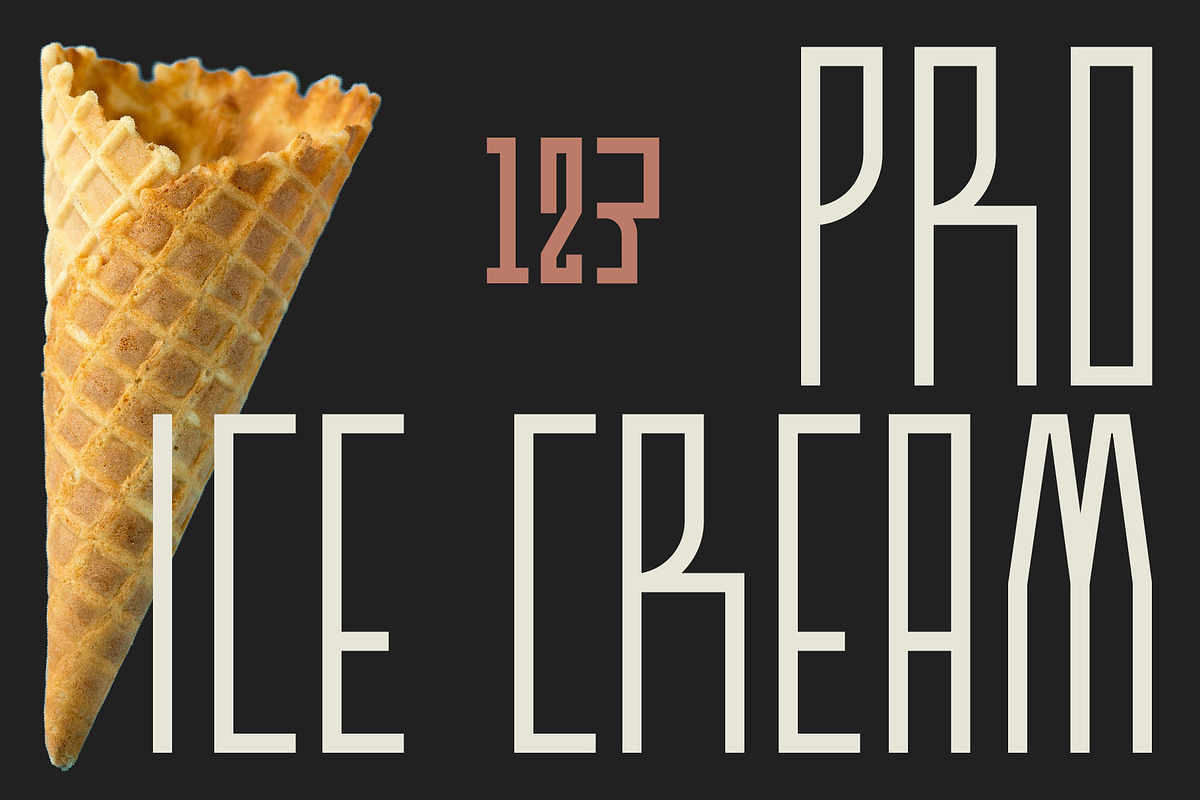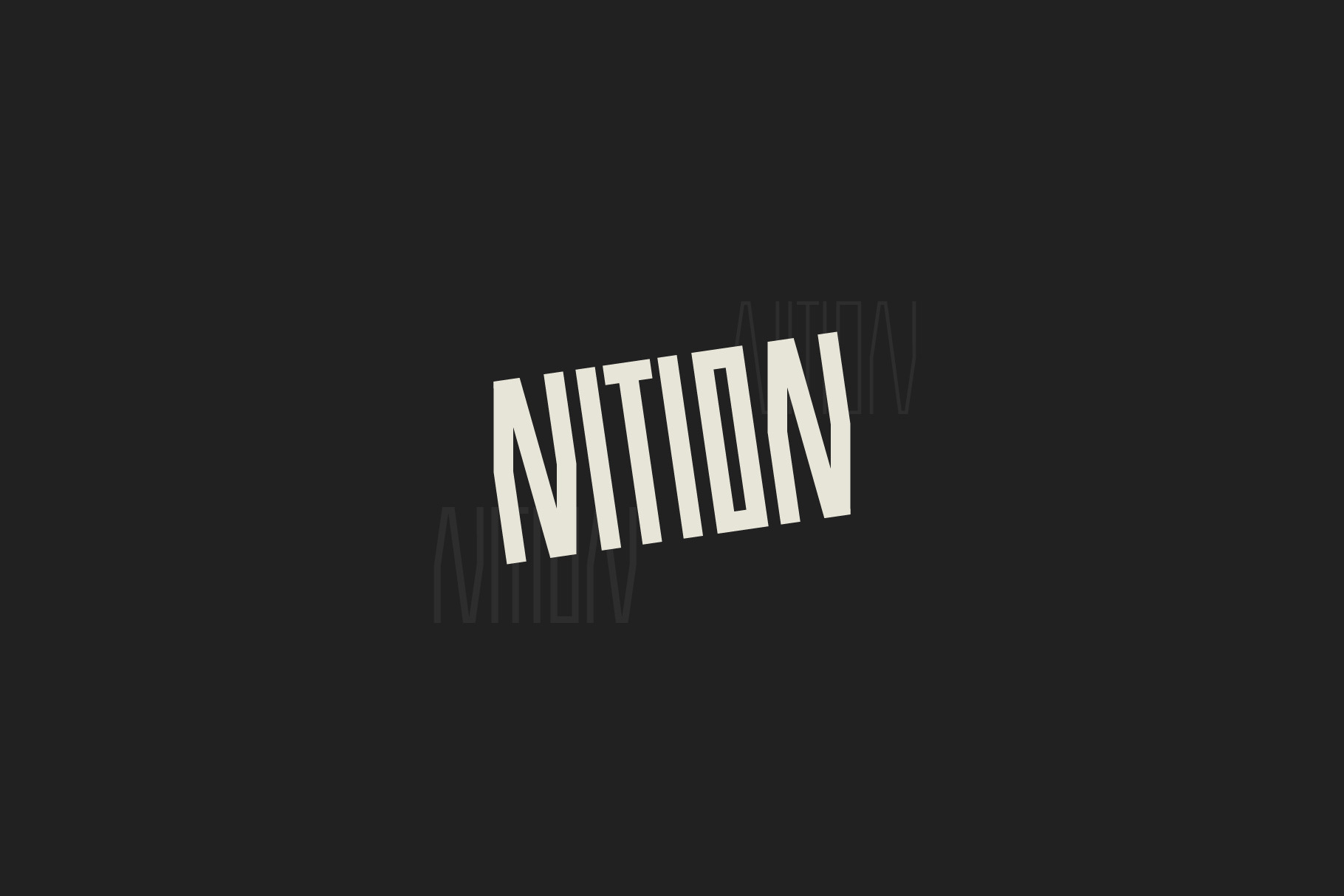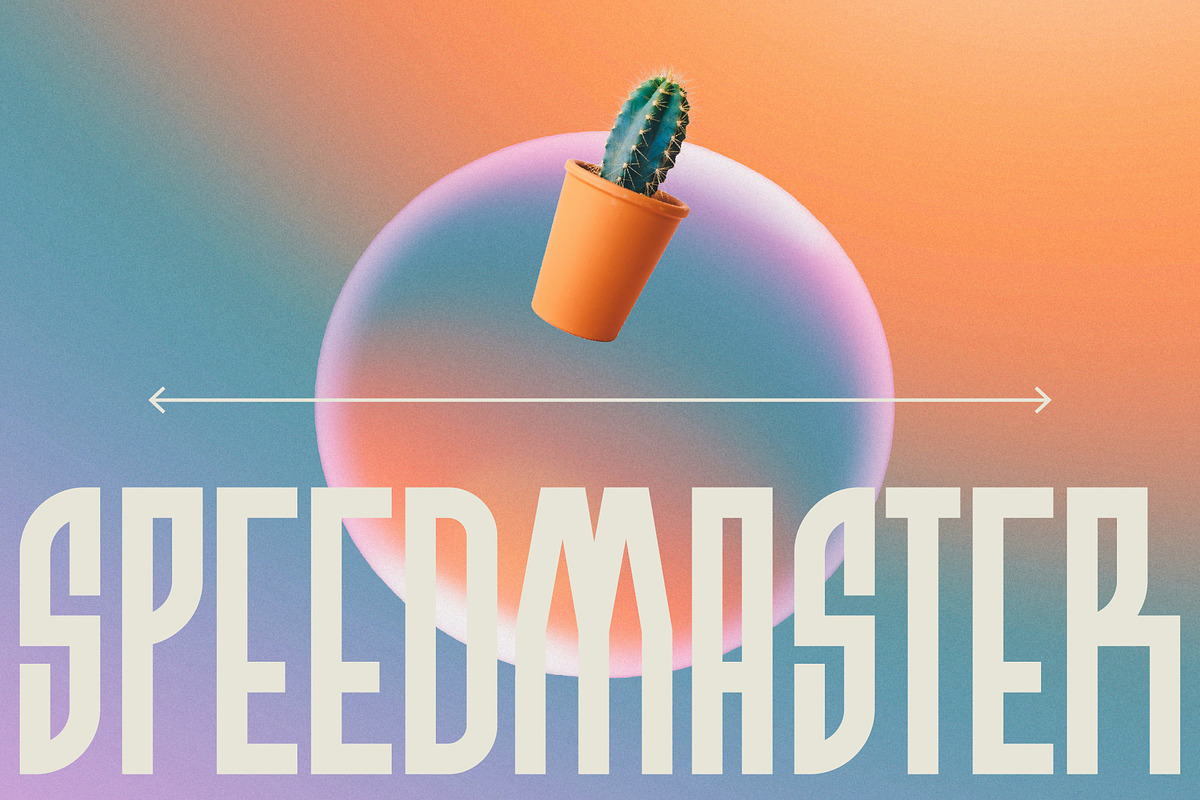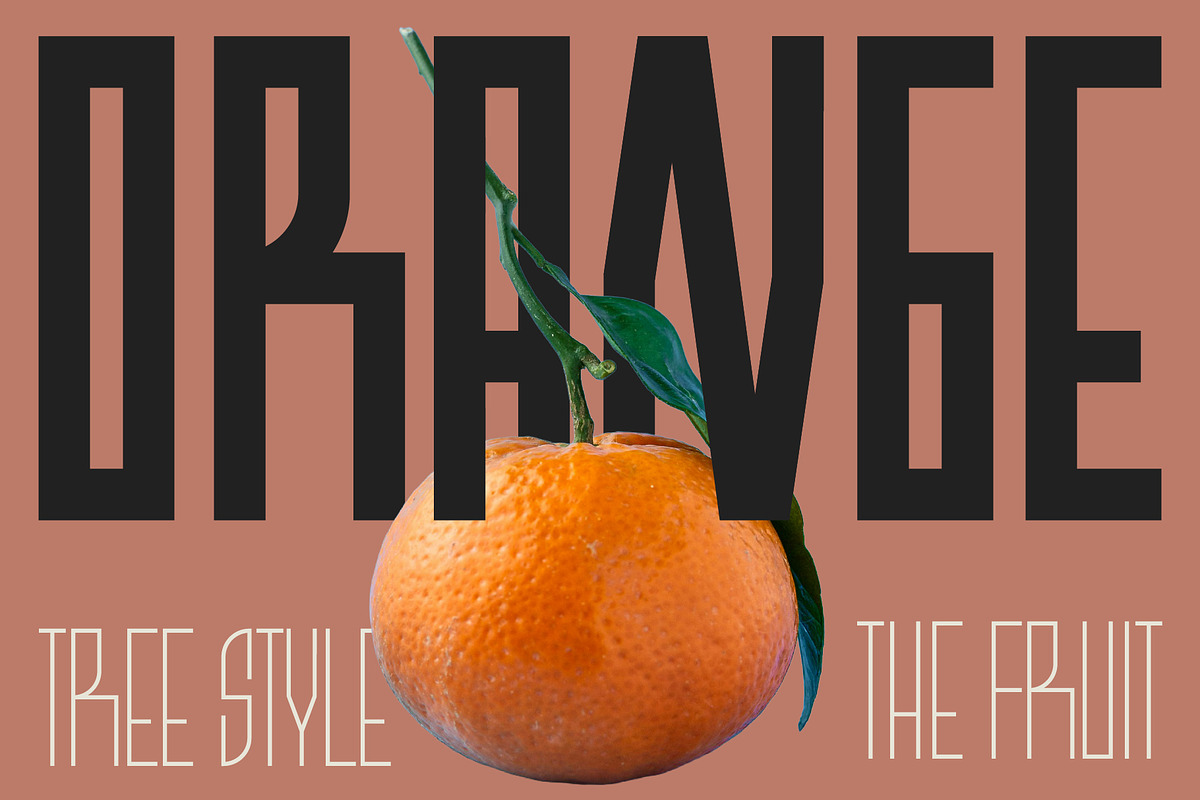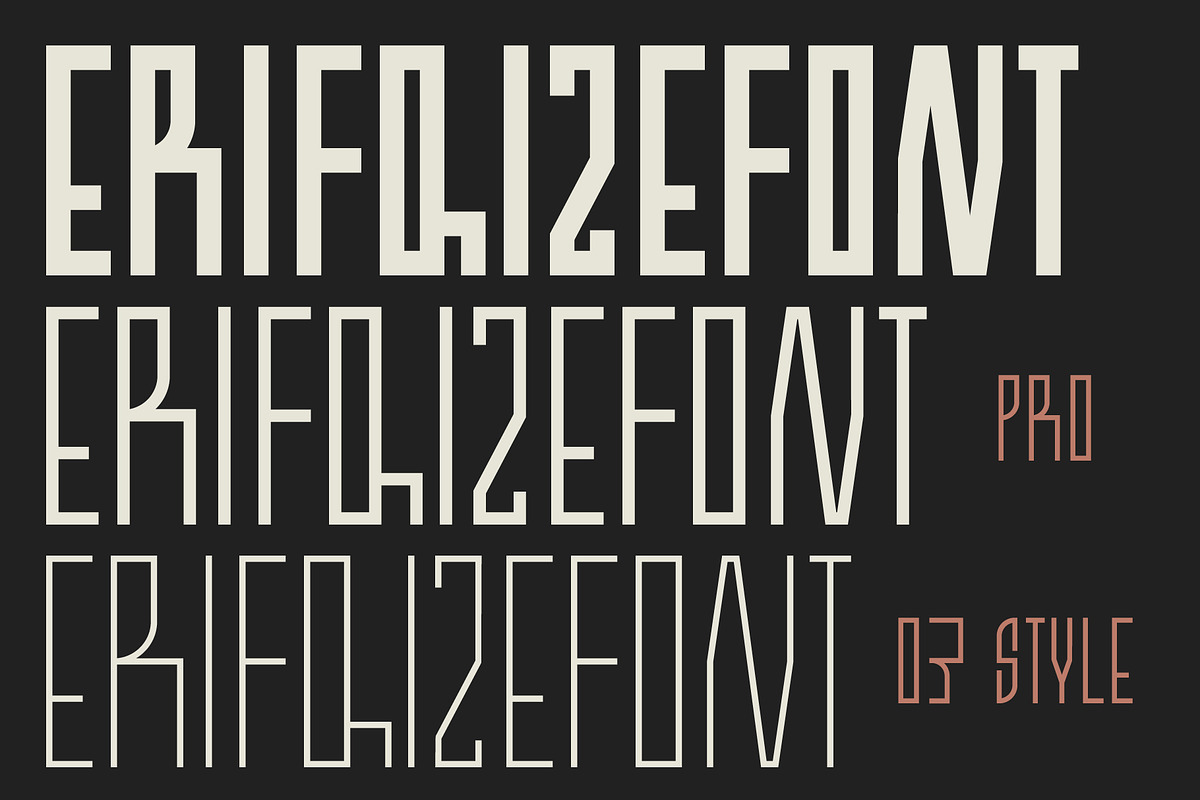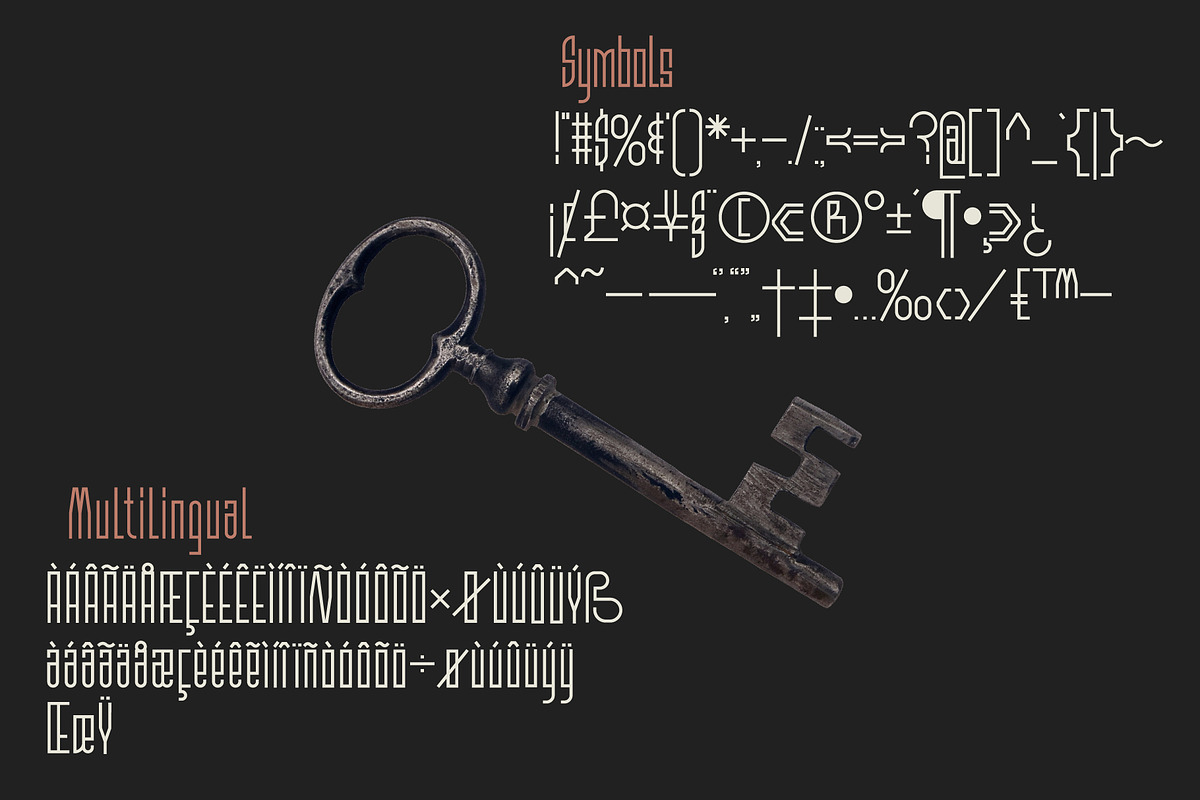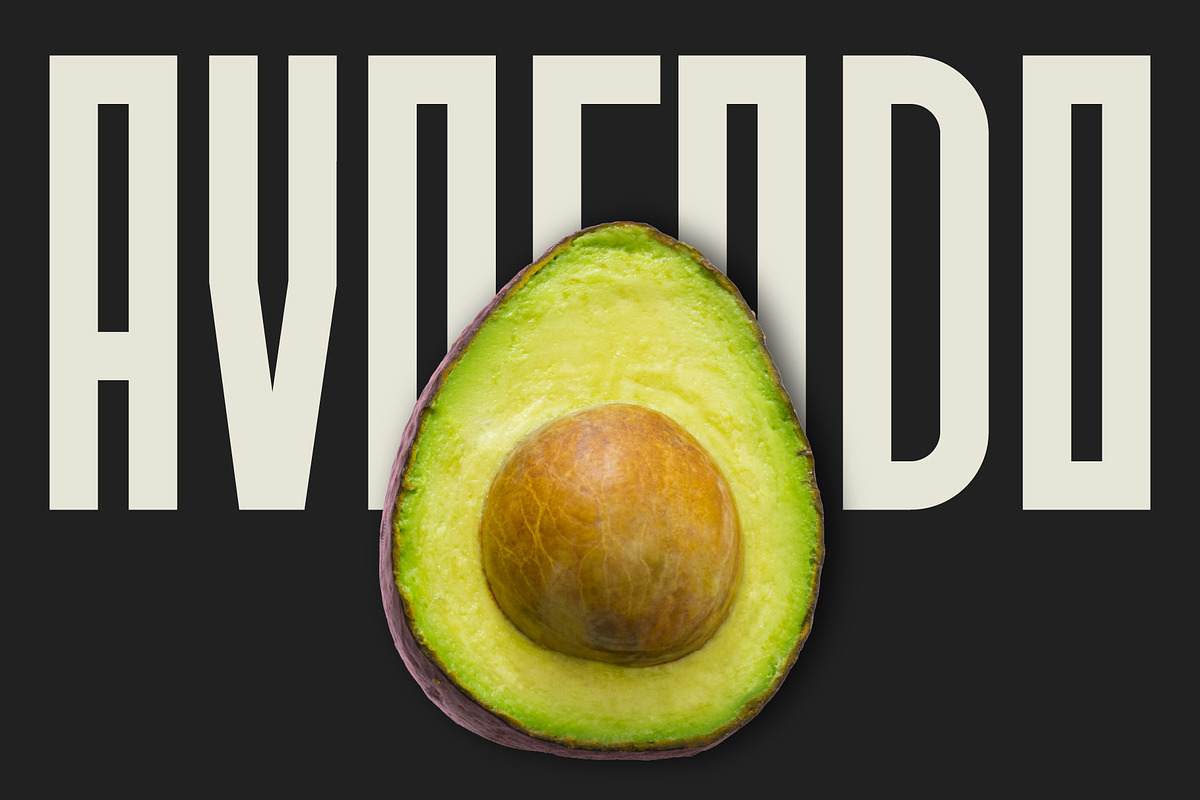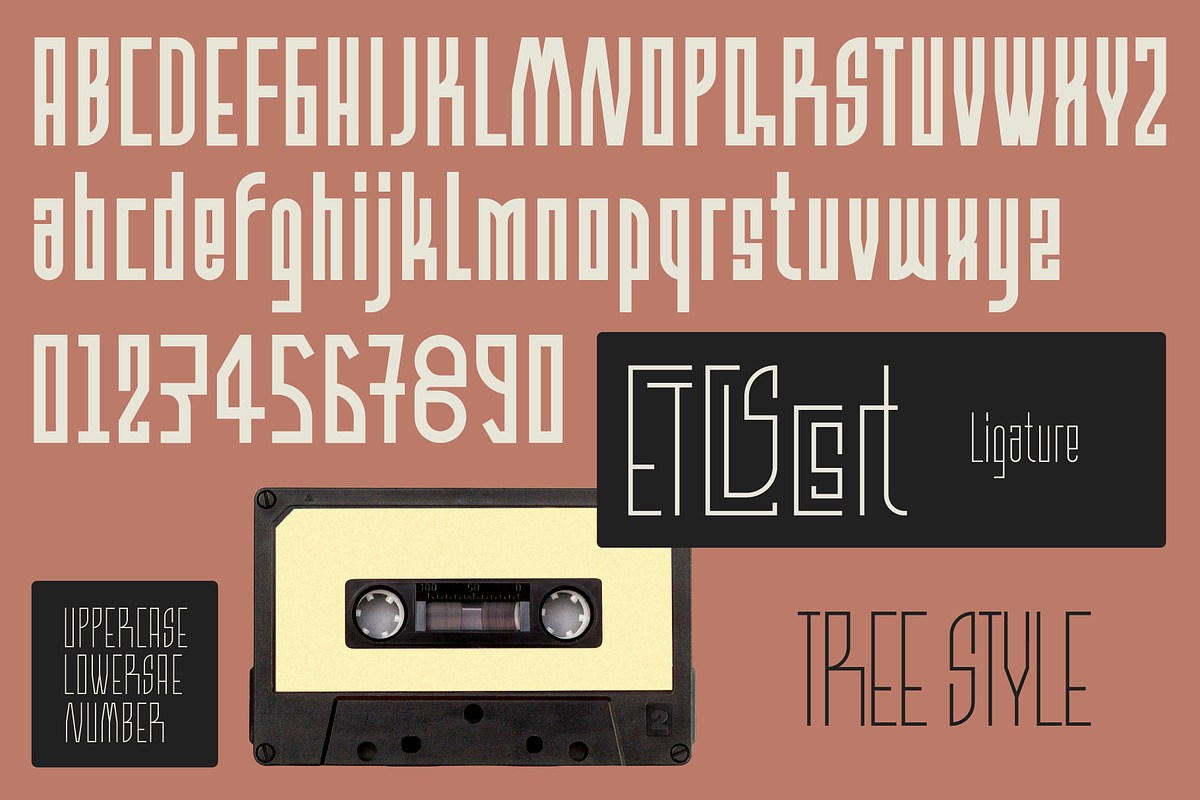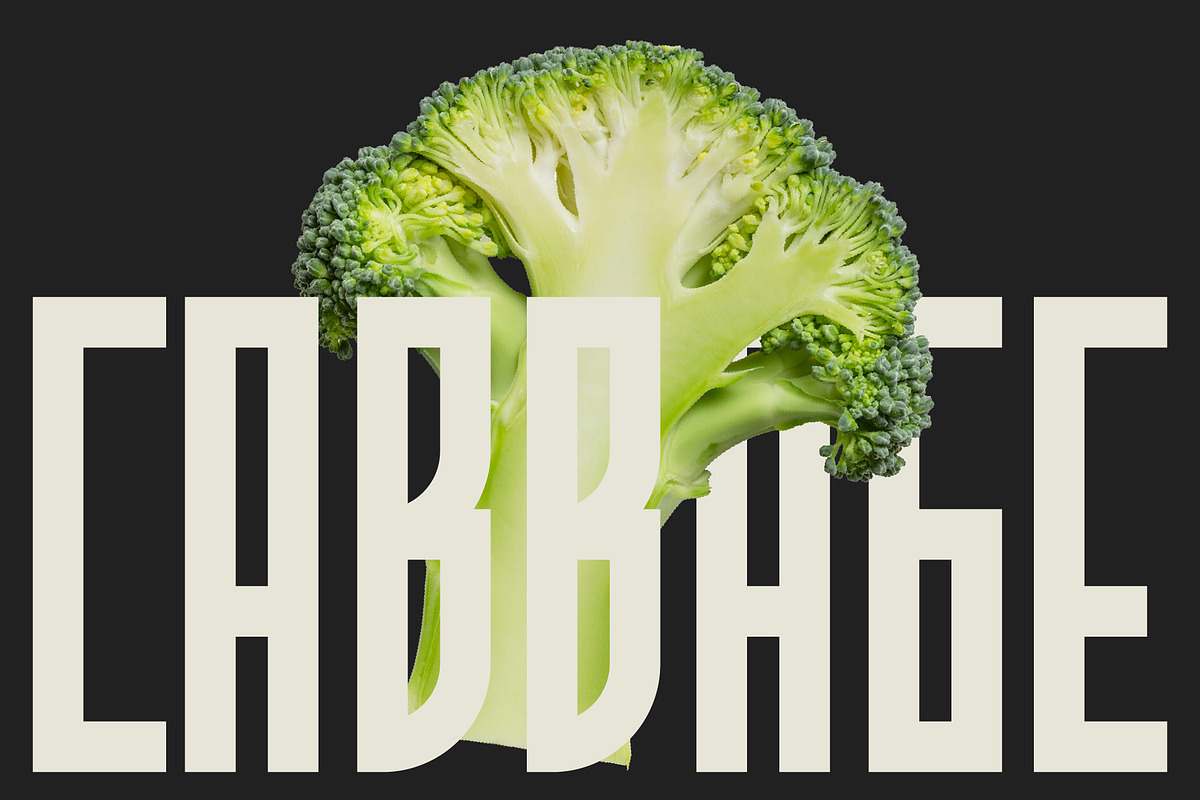
Nition Font
NITION is a modern condensed display typeface built for speed, strength, and clarity. Featuring tall proportions and sharp geometric forms, NITION delivers a strong visual presence inspired by sports, motion, and high-performance design.
This type family includes 3 versatile styles:
NITION Thin — sleek and minimal, perfect for layered compositions, modern layouts, and dynamic typography. NITION Regular — balanced and clean, ideal for headlines, posters, branding, and editorial use. NITION Bold — powerful and aggressive, designed to dominate sports visuals, logos, and high-impact titles. With its condensed structure, NITION maximizes space efficiency while maintaining excellent readability at large sizes. It works exceptionally well for sports branding, posters, logos, packaging, esports visuals, social media graphics, and modern advertising.
NITION is designed for creatives who need a fast, bold, and contemporary display typeface with strong personality.